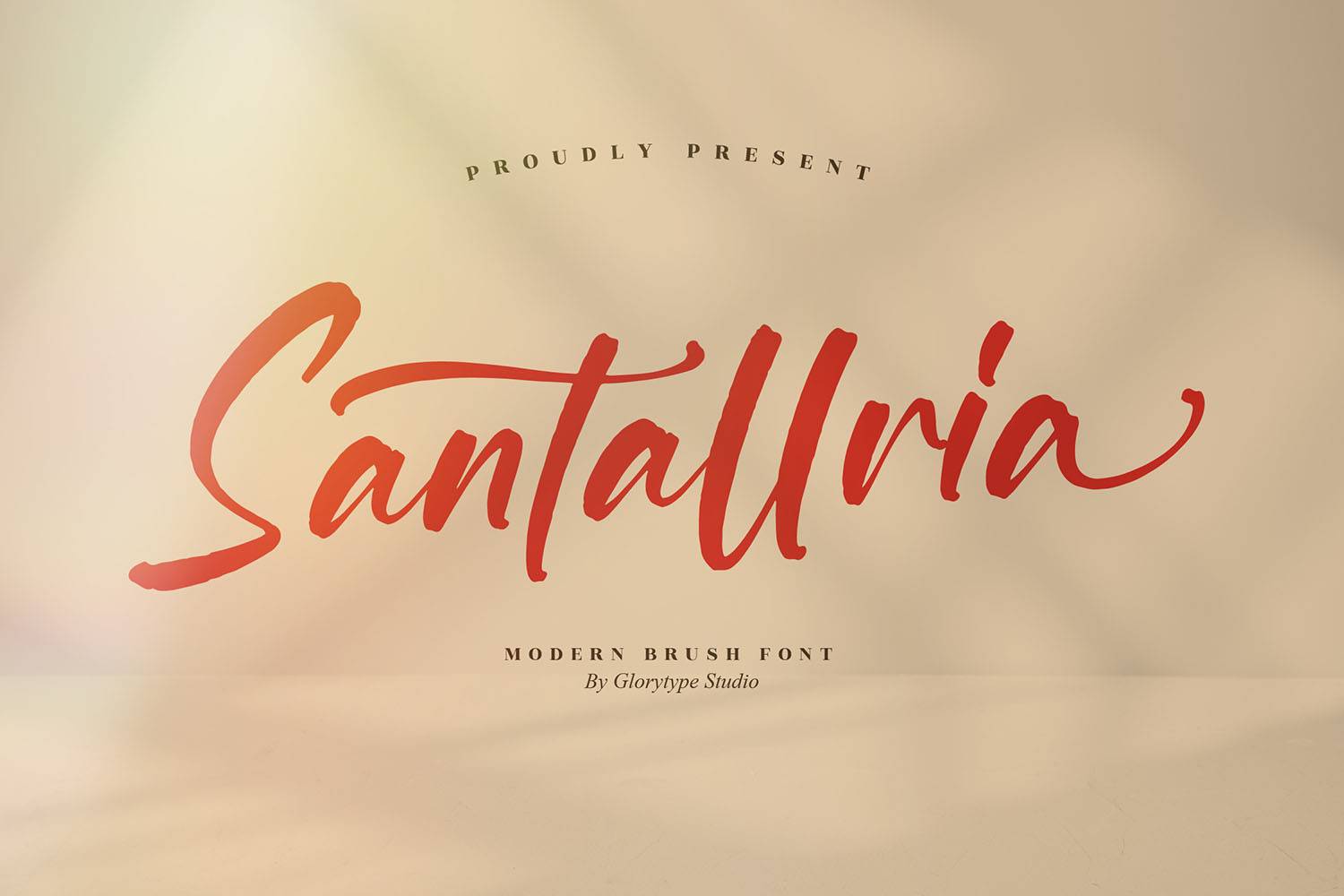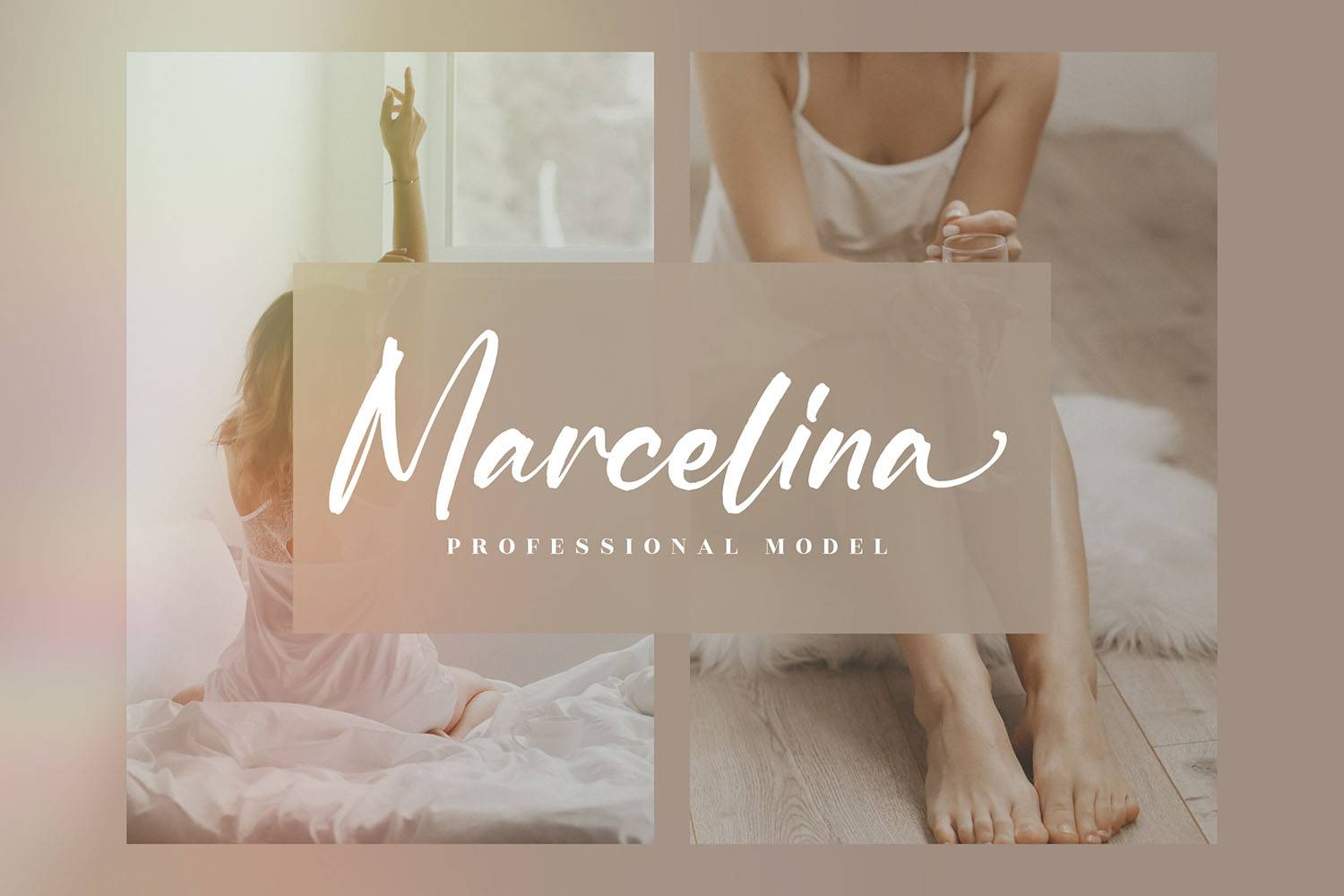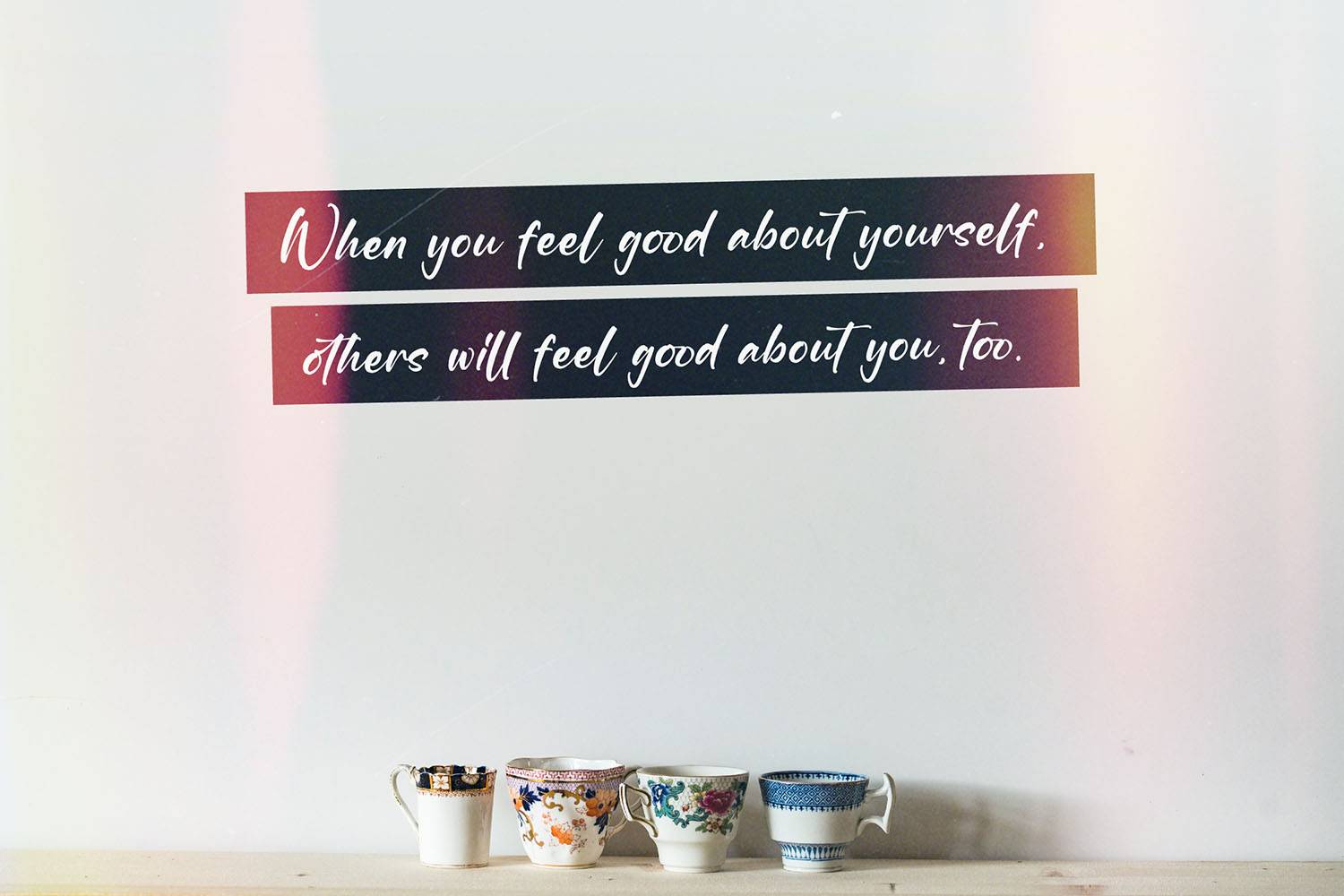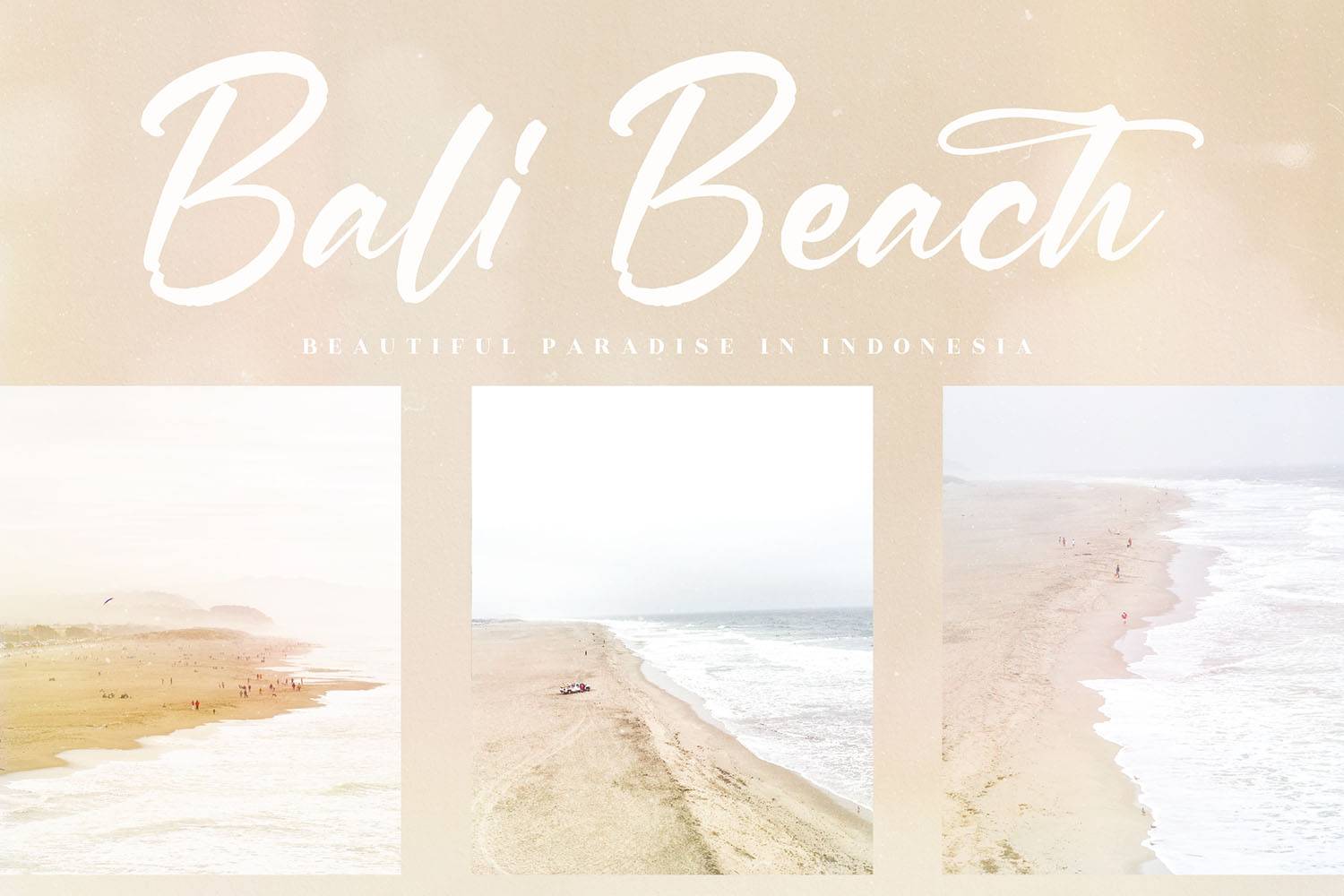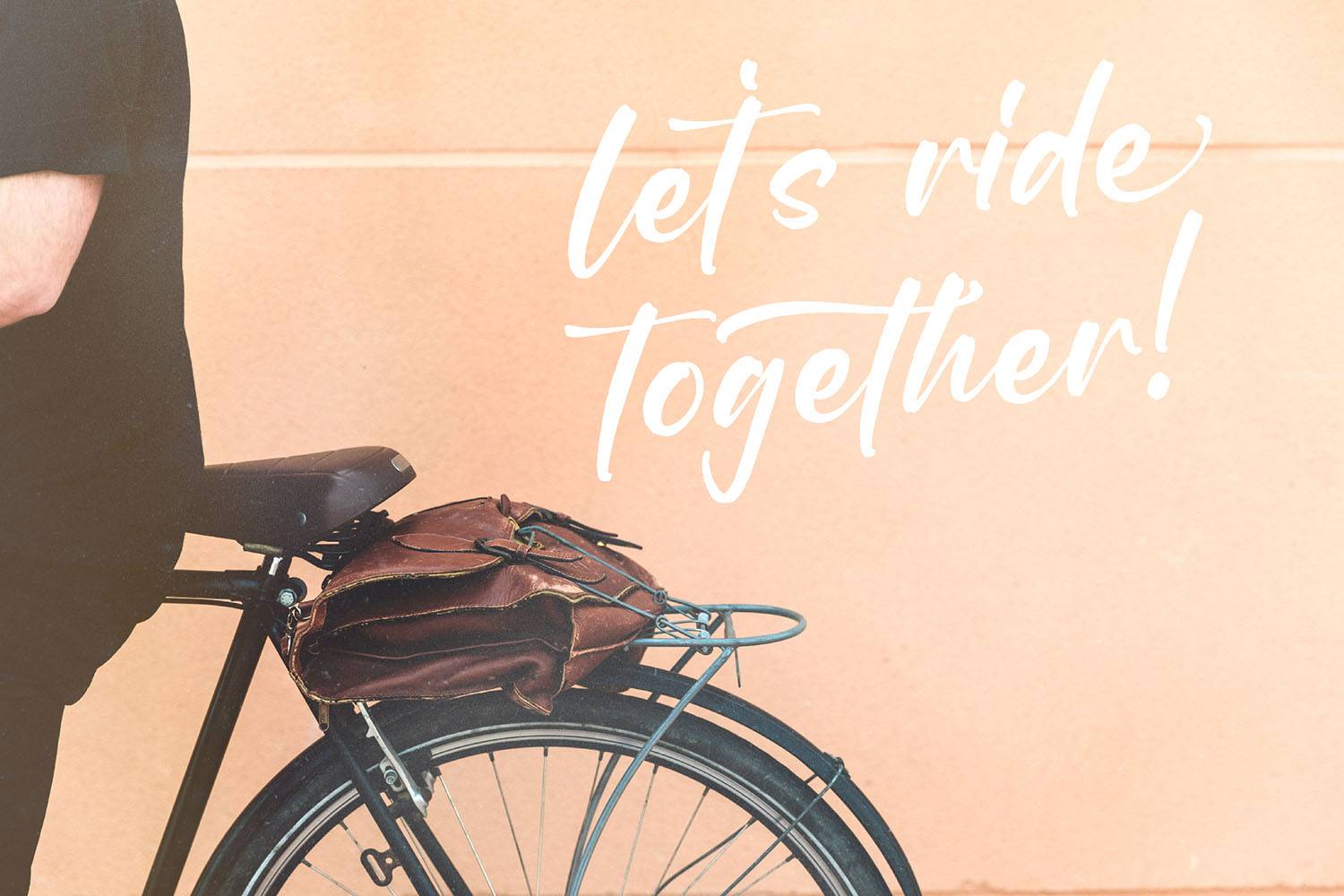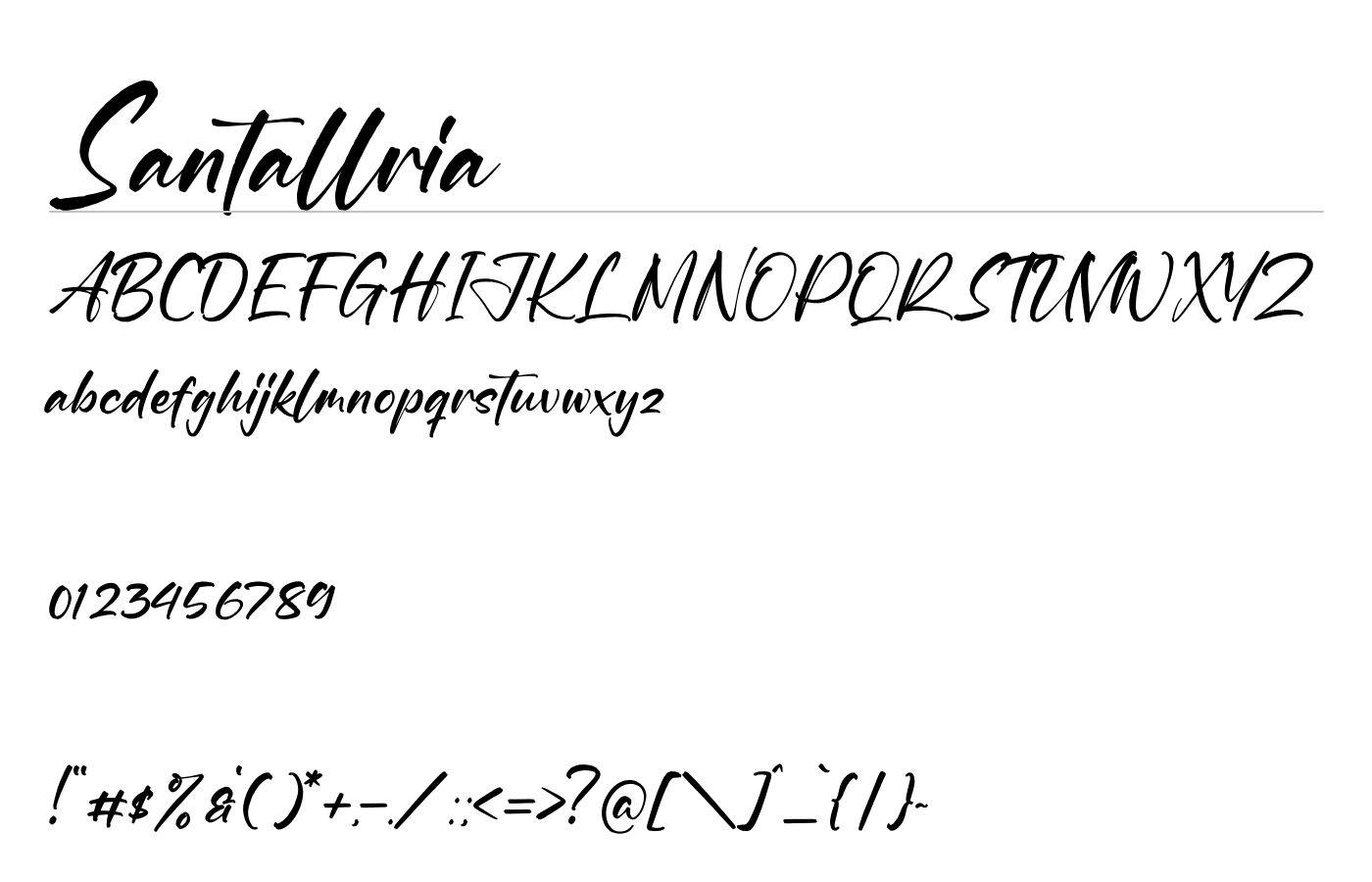
Santallria is a lively script font featuring a hand-brushed style with medium contrast and fluid, dynamic strokes. Its casual yet elegant character makes it perfect for adding a personal, artistic touch to branding, invitations, and creative projects where warmth and authenticity are desired. This font works well in headlines and logos, bringing a fresh, modern feel with a handwritten charm.
Santallria Font
About Santallria Font